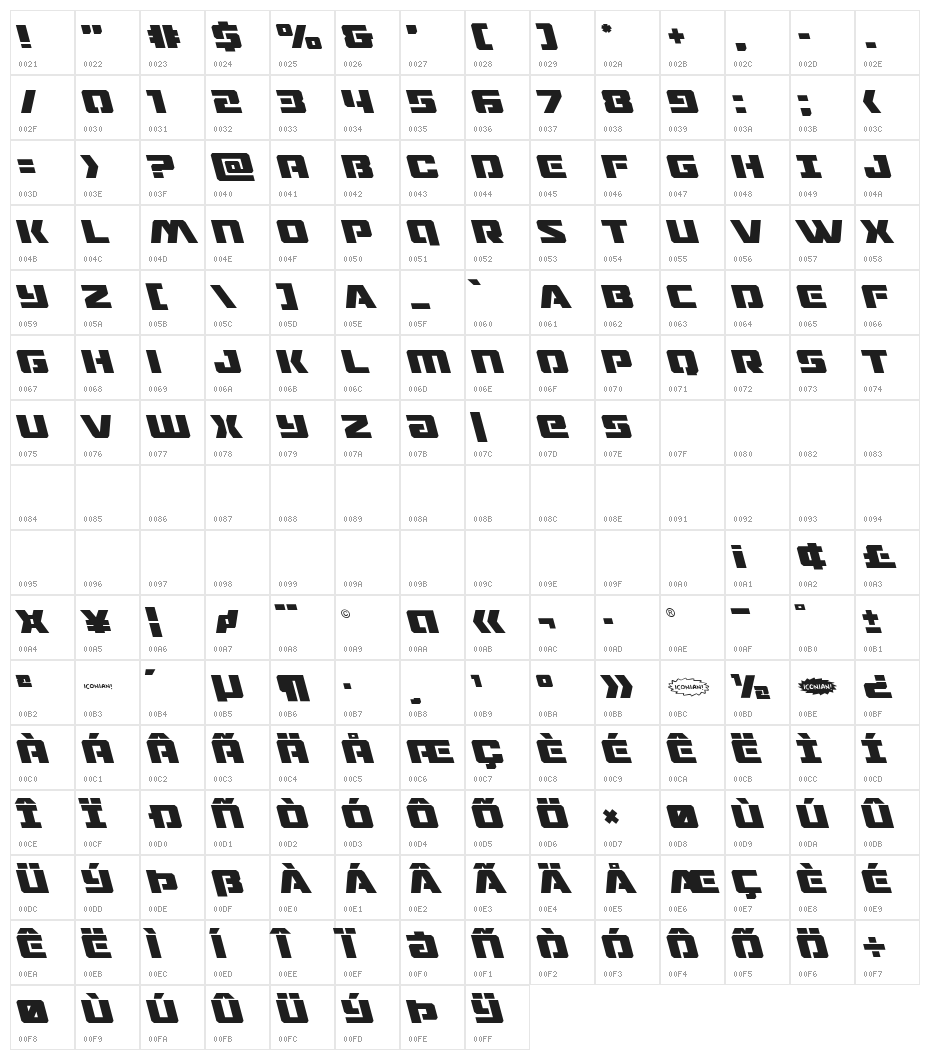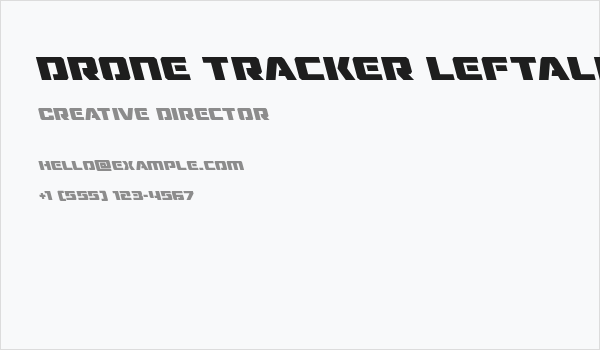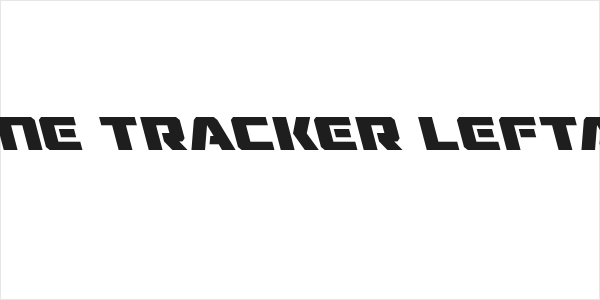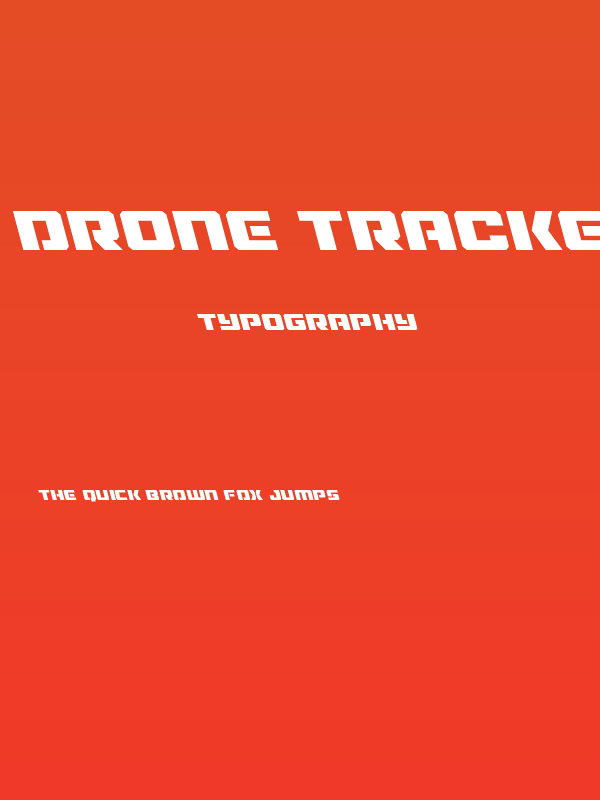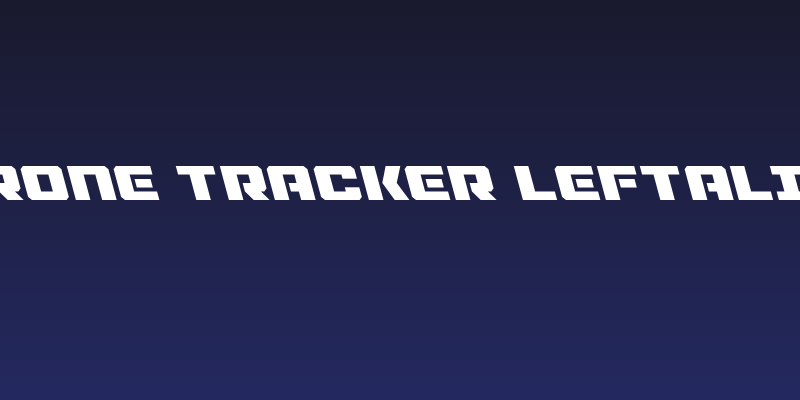
Drone Tracker Leftalic Font
Drone Tracker Leftalic Description
This font features a bold, angular design with a futuristic and industrial feel. The characters are heavily stylized with sharp edges and a distinct slant, giving them a dynamic and forward-moving appearance. The uppercase and lowercase letters maintain a consistent geometric structure, while the numerals and special characters complement the overall aesthetic. The font's boldness and unique style make it suitable for projects that require a strong visual impact.
| Proposed Projects | Ideal for sci-fi themed designs, technology branding, video game titles, and posters. |